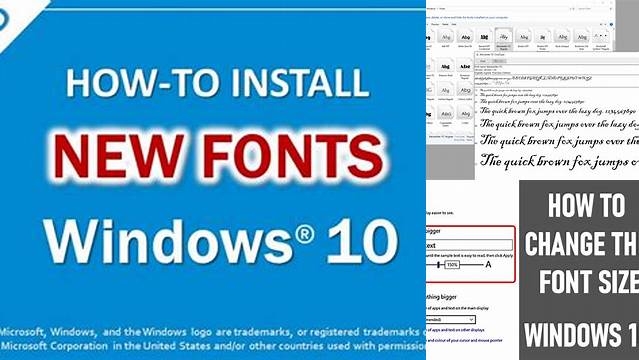
Customize Display Fonts In Windows 10: A Complete Guide
Hey everyone! Let's dive into how to tweak those display fonts in Windows 10. Ever get tired of the same old look? Maybe you need something easier on the eyes, or perhaps you just want to spice things up. Changing your fonts can make a huge difference in how you experience your PC. It's not just about looks; it's about making your digital world work for you. This guide will walk you through every step, so you can customize your Windows 10 display fonts with ease.
Why Customize Your Fonts?
So, why bother changing your display fonts? Well, the reasons are actually pretty compelling. First off, it's all about personalization. Your computer should feel like your computer, right? Changing fonts is a simple way to add a personal touch, making your desktop reflect your style. Beyond that, font customization can significantly improve readability. If you spend hours staring at a screen, the default fonts might not be the most comfortable. Perhaps the default fonts are too small, or maybe they're just not the best choice for your vision. You can adjust them to be larger, bolder, or even switch to fonts that are specifically designed for better readability. This can reduce eye strain and make your overall computing experience much more pleasant. Furthermore, font changes can influence accessibility. If you have visual impairments, adjusting the font size, style, and even the color can make a huge difference in your ability to use your computer comfortably and effectively. Windows 10 provides various options to cater to different needs, ensuring everyone can enjoy their digital experience. You might find that a specific font is easier to read than others, helping you work or play more efficiently. Finally, tweaking your fonts can simply be a fun way to refresh the look of your PC. Sometimes, a little change is all you need to feel like you have a brand-new setup. It's like giving your computer a makeover without having to buy anything new. It's a small change that can have a big impact on how you feel about using your computer every day. The ability to adjust fonts is often overlooked, but it’s a powerful tool for tailoring your computer's interface to your personal preferences and needs.
The Impact of Font Choice
Your font choice directly impacts your daily computer usage. The right font can drastically improve readability and reduce eye strain. Choosing a font that is easy to read for extended periods is crucial. Consider fonts known for their clarity, especially at smaller sizes. Fonts like Arial, Calibri, and Verdana are popular choices for their clean lines and open shapes, which make them easy to distinguish. Conversely, some fonts, such as those with overly ornate designs or unusual serifs, might look interesting but can hinder readability, causing unnecessary strain on your eyes. Font size also plays a critical role. Adjusting the font size to a comfortable level is vital, especially if you spend a lot of time reading text on your screen. You might prefer a larger font size if you have visual impairments or simply want to reduce eye fatigue. Windows 10 allows you to scale fonts across the system, meaning you can adjust the size for all elements, including text in applications, menus, and even the desktop. The appropriate font size enhances usability, making it easier to navigate and absorb information. Beyond size and style, the font's weight—whether it's regular, bold, or italic—also contributes to the overall visual experience. Bold fonts can make text stand out, which is useful for headings or important information, but using too much bolding can be distracting. The right balance of font weight keeps your text clear and guides your eye to the most important elements. Selecting the correct font impacts accessibility significantly. Individuals with visual impairments greatly benefit from larger, clearer fonts. High contrast settings and bold fonts can dramatically improve readability, helping users with low vision to easily interact with their computers. Windows 10 provides options to further customize font display to accommodate these needs. The wrong choice of font can lead to a frustrating user experience, while the proper font selection can make your computing experience comfortable and productive. Remember, the goal is to find the font that best suits your visual needs and aesthetic preferences. This ensures you enjoy your computer use while optimizing your workflow.
Advanced Font Customization Techniques
Let’s dive into some advanced techniques for even more customization. Sometimes, the standard options aren’t enough, and you want to go a step further. We'll explore a few methods that give you more control over your system’s display fonts. These tips are for the more adventurous users who want to fine-tune their display experience.
Using the Registry Editor
The Registry Editor is a powerful tool, but it's also risky if you're not careful. The registry contains all the configuration settings for your Windows system. Changing the wrong values can lead to serious problems, so back up your registry before you start! Type "regedit" in the Windows search bar and open the Registry Editor. Navigate to the key that controls the font settings. This will typically involve navigating through various folders, each containing different settings. Then find the settings that control the specific fonts you want to change. You can modify the font used for menu items, window titles, and other UI elements. However, the precise location of these settings can vary depending on your Windows version, so you may need to search online for the specific keys. Once you locate the correct key, you can change the font settings by editing the values. You may need to enter the font name, style, and size. Remember to double-check your entries, as incorrect values can cause display issues. After making your changes, close the Registry Editor and restart your computer for the changes to take effect. If something goes wrong, you can restore your backup. This process involves risks and requires some familiarity with the Windows registry. It is also important to understand the potential impact of changes. Improper modifications can lead to the operating system malfunctioning. Be careful when using the Registry Editor and always back up your registry before making any changes.
Third-Party Font Management Tools
If you're not comfortable with the Registry Editor, consider using third-party font management tools. Many applications are designed to help you customize and manage your fonts in Windows 10. These tools often offer more user-friendly interfaces and make it easier to change font settings. Search for programs that allow you to change system fonts, and see what options they provide. Some tools have features like font previews, font comparison, and the ability to change multiple font settings at once. They can also help you organize and manage your installed fonts, making it easier to find and use the fonts you want. Look for tools that allow you to change the fonts used in various UI elements, such as menus, window titles, and message boxes. Many of these tools also provide options to customize the appearance of your desktop. Always download these tools from trusted sources to avoid malware. Read reviews and check the developer's reputation before installing anything on your computer. After installing and running the font management tool, follow the software's instructions. You will be able to browse the available fonts and apply them to different system elements. Remember to restart your computer or log out and log back in for the changes to apply. Third-party font management tools can significantly simplify the process of customizing your fonts. These tools are typically designed to be intuitive, offering a more user-friendly approach compared to the registry editing. With these tools, users can easily preview and apply fonts, avoiding the complexity and risks associated with manual registry edits. This can be particularly beneficial for users who lack technical expertise or prefer a simpler solution.